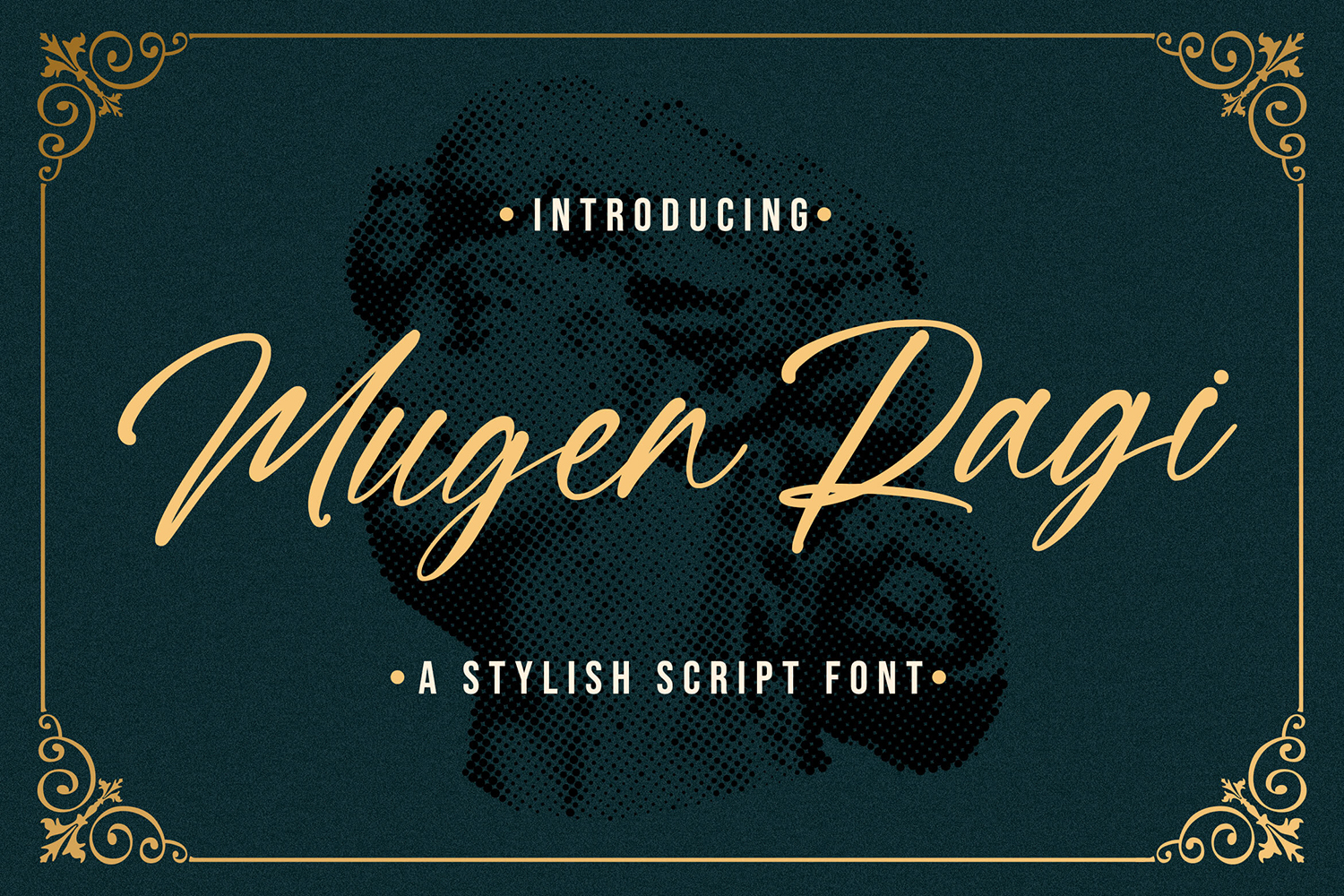
Mugen Ragi Free Font
Mugen Ragi Free Font is a contemporary script font that brings a modern touch to a variety of design projects. Whether it’s branding, headings, wedding designs, invitations, signatures, logos, labels, or any other creative endeavor, this font will elevate your work to new heights. With Mugen Ragi, you can add a stylish and sophisticated flair to your designs, capturing attention and making a lasting impression. Explore the vast possibilities this font offers, and watch your projects soar to the highest level of visual excellence. This free typeface was designed by a talented StringLabs Creative. If you like it don’t forget to check out the full version.